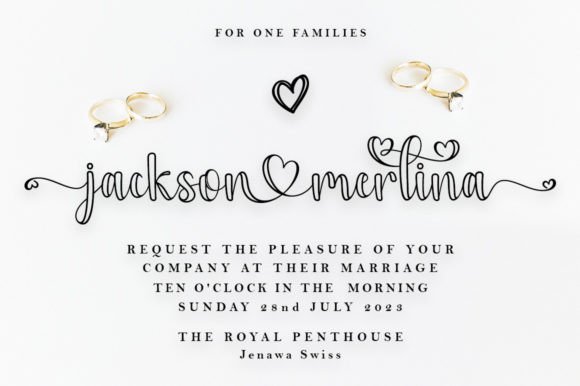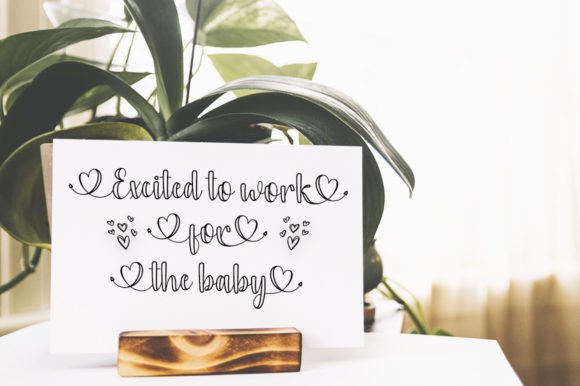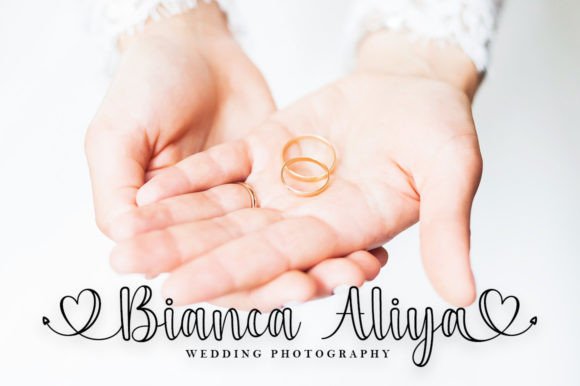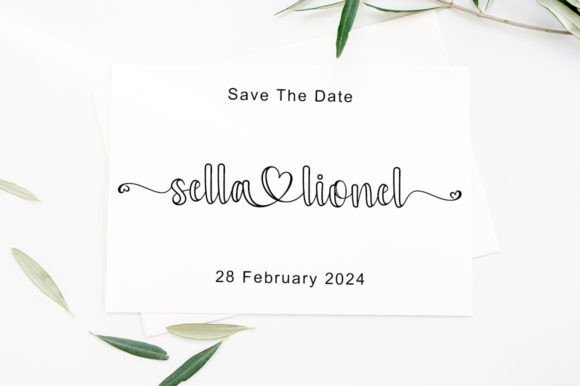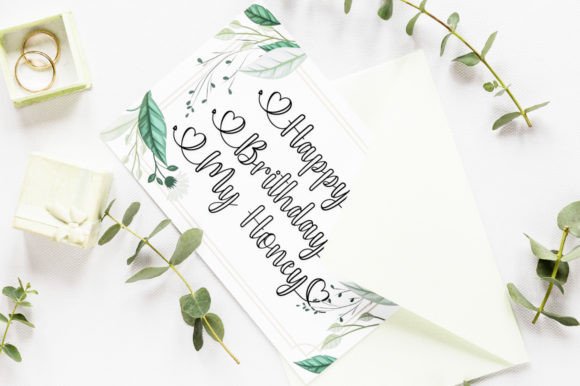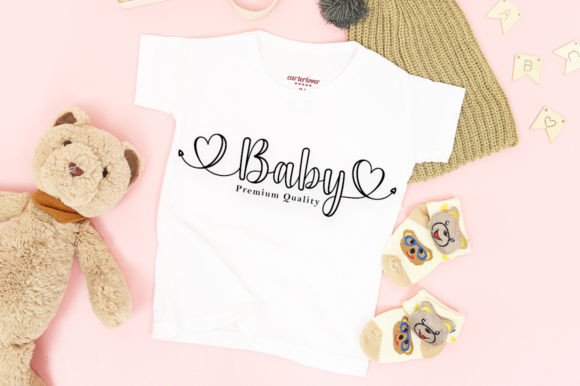
Unleash Your Creativity with Baby Love Outline Font
There’s something magical about sitting down with a blank sheet of paper, a cup of coffee, and a font that sparks joy. For many designers, that moment comes when they stumble upon the perfect font to bring their vision to life. For me, it’s the Baby Love Outline Font – a stunning, elegant handwritten font that adds a touch of whimsy and romance to any project.
Perfect for crafting wedding invitations, cards, or other special designs, Baby Love Outline Font is a must-have for any designer looking to add a fancy touch to their work. Its unique style and PUA encoding make it incredibly versatile, allowing you to access a wide range of glyphs and swashes with ease. Whether you’re a seasoned pro or just starting out, this font is sure to become a favorite – and a valuable addition to your design arsenal.
Baby Love Outline Font Key Features
- Unique Characteristic: The font features a delicate, hand-drawn design with intricate details, making it perfect for creating baby-themed designs, nursery decor, and children’s products.
- Font Style: Baby Love Outline Font is an outline font, meaning that the font’s design is created by outlining the characters with a single stroke, giving it a distinctive look.
Baby Love Outline Font Review
Overall, I found the Baby Love Outline Font to be a unique and endearing choice for any design project. ✨ The intricate details and curves of the font make it perfect for creating whimsical and childlike designs, such as baby products, nursery decor, or children’s books.
- ✨ The font’s delicate and hand-drawn feel adds a personal touch to designs.
- ✨ The outline style makes the font easy to read and understand, even at smaller font sizes.
- ✨ The font’s simplicity and elegance make it a great choice for minimalist designs.
However, I did notice some limitations:
- ⚠️ The font may not be the best choice for designs that require a bold or dramatic feel, as it can come across as too delicate.
- ⚠️ The font may not be suitable for large-scale typography, as the details can get lost at larger font sizes.
- ⚠️ The font’s limited character set may make it difficult to use for longer blocks of text.
Overall, I think the Baby Love Outline Font is a great choice for designers looking to create sweet and playful designs. With a little creativity and planning, it can be used effectively in a variety of projects.
The Baby Love Outline Font is perfect for creating whimsical and playful designs, such as:
Children’s party invitations and decorations
Baby shower invitations and decorations
Children’s book illustrations and typography